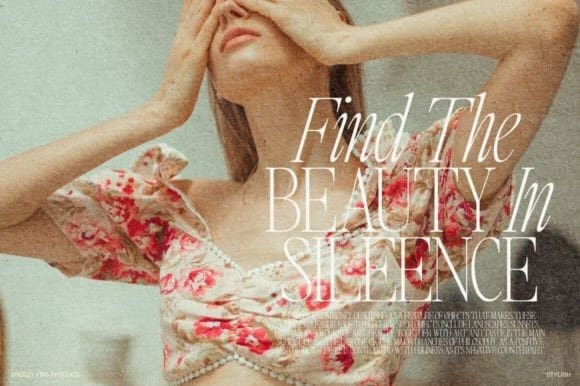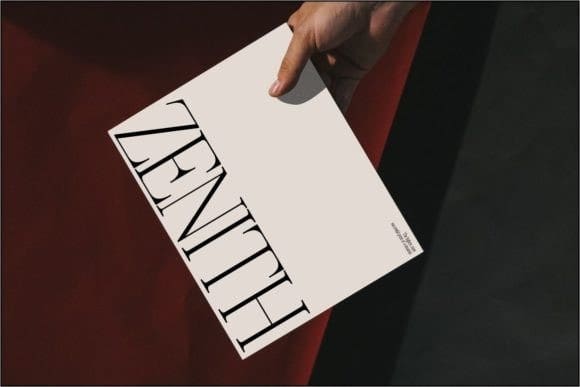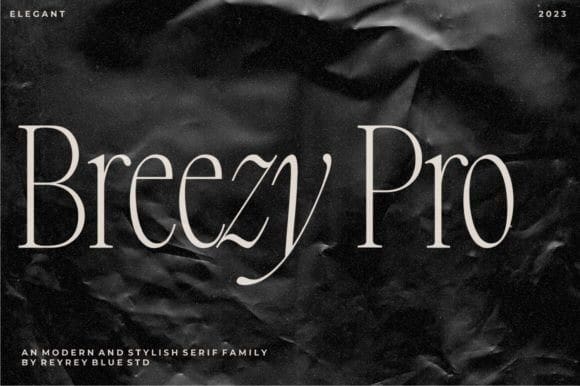
Breezy Pro Font
Breezy Pro Font a classical typeface with a complementary italic version. It’s elegant, modern, and stylish. Mix and match them to create eye-catching effects and make every word a masterpiece.
Breezy Pro is perfectly suited for fashion and magazine design, Inspirational quote designs, logo designs, simple and classy Logos, web font, branding, product packaging, and much more. This font is PUA-encoded, which means you can easily access all of the glyphs!